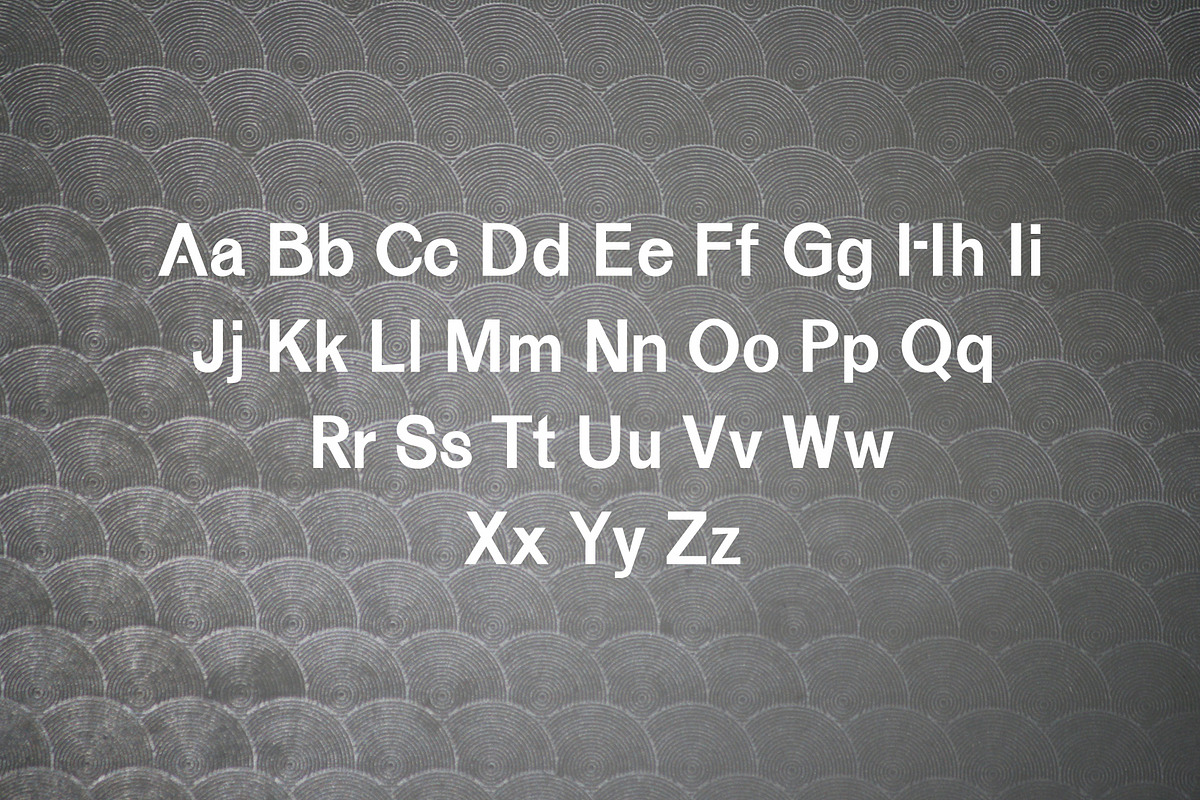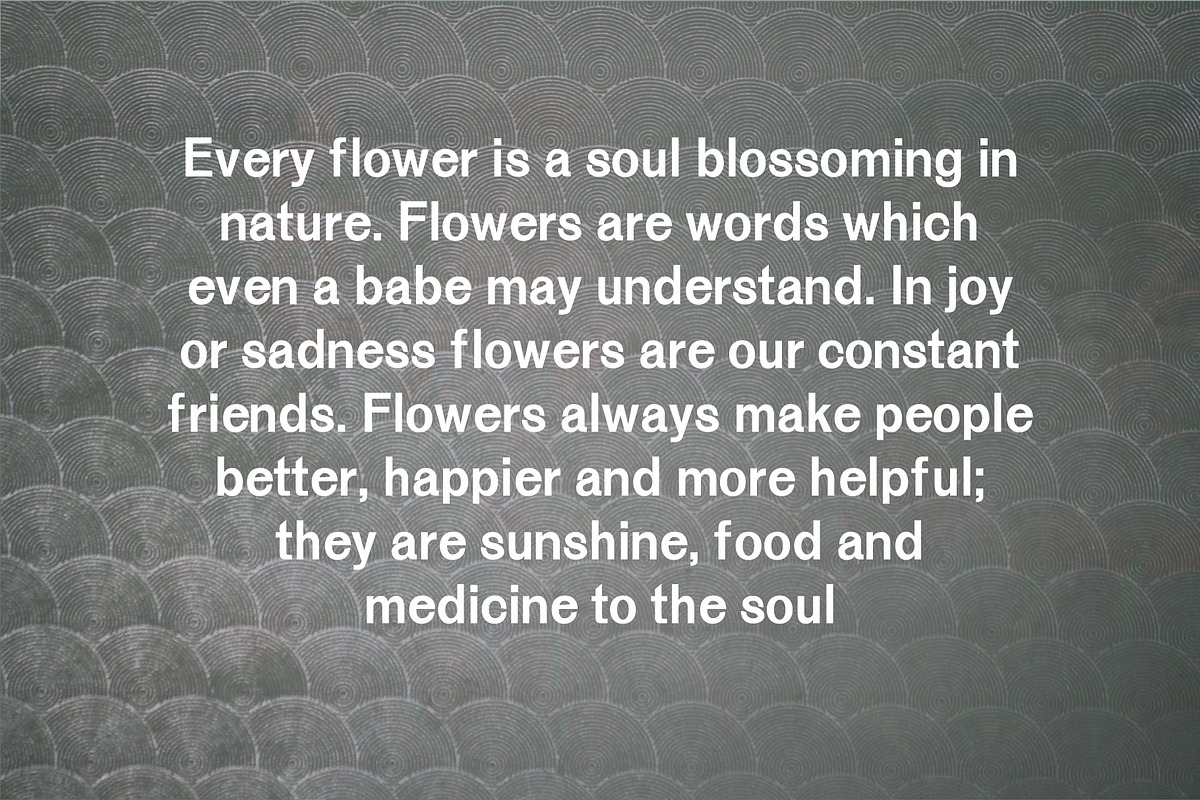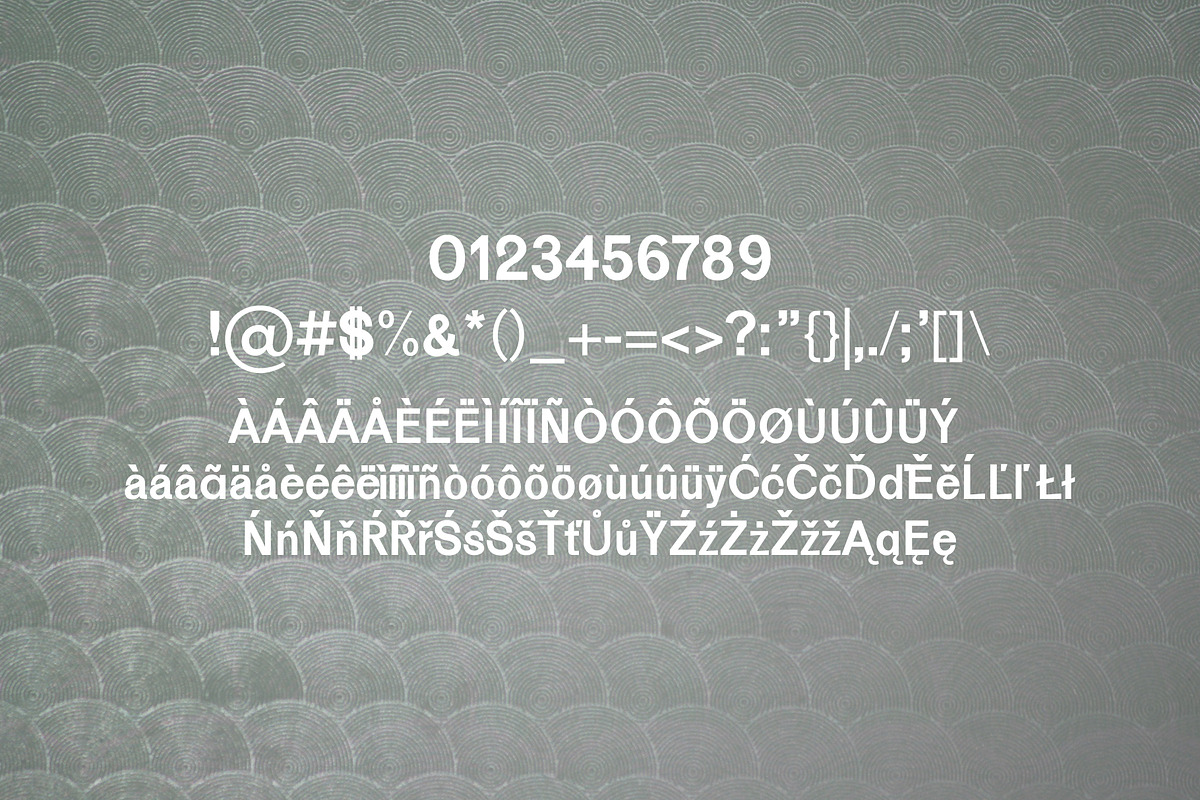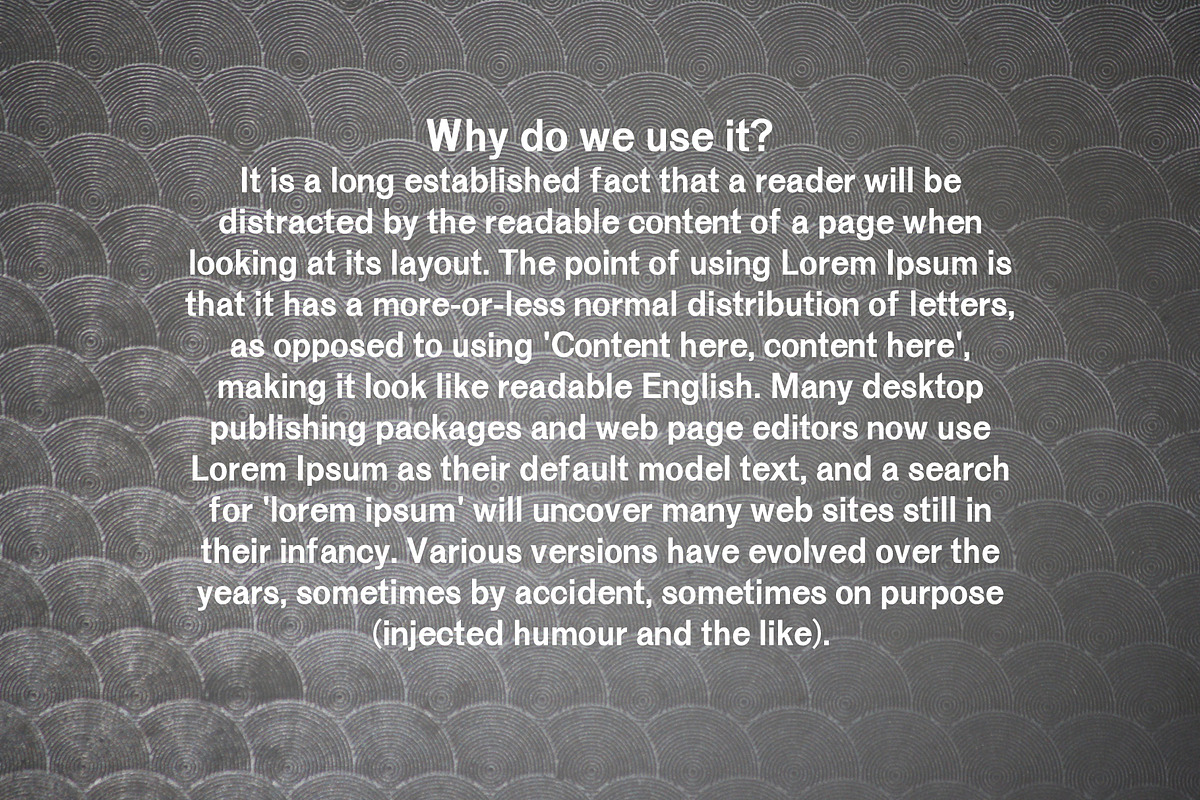
Beacher Sans Serif 6 Font Family
Beacher Sans Serif 6 Font Family by Creativetacos is a font selected for branding, posters, packaging, typography.
- Includes 6 weights The perfect choice for Modern, Fashion & Magazine Titles.
- Regular, Thin, Light, Medium, Outline and Bold Weights
- Beacher Thin
- Beacher Light
- Beacher Regular
- Beacher Medium
- Beacher Bold
- Beacher Outline
Why Beacher Sans Serif 6 Font Family is worth a look
Beacher Sans Serif 6 Font Family by Creativetacos fits naturally into Branding, posters, packaging, typography.